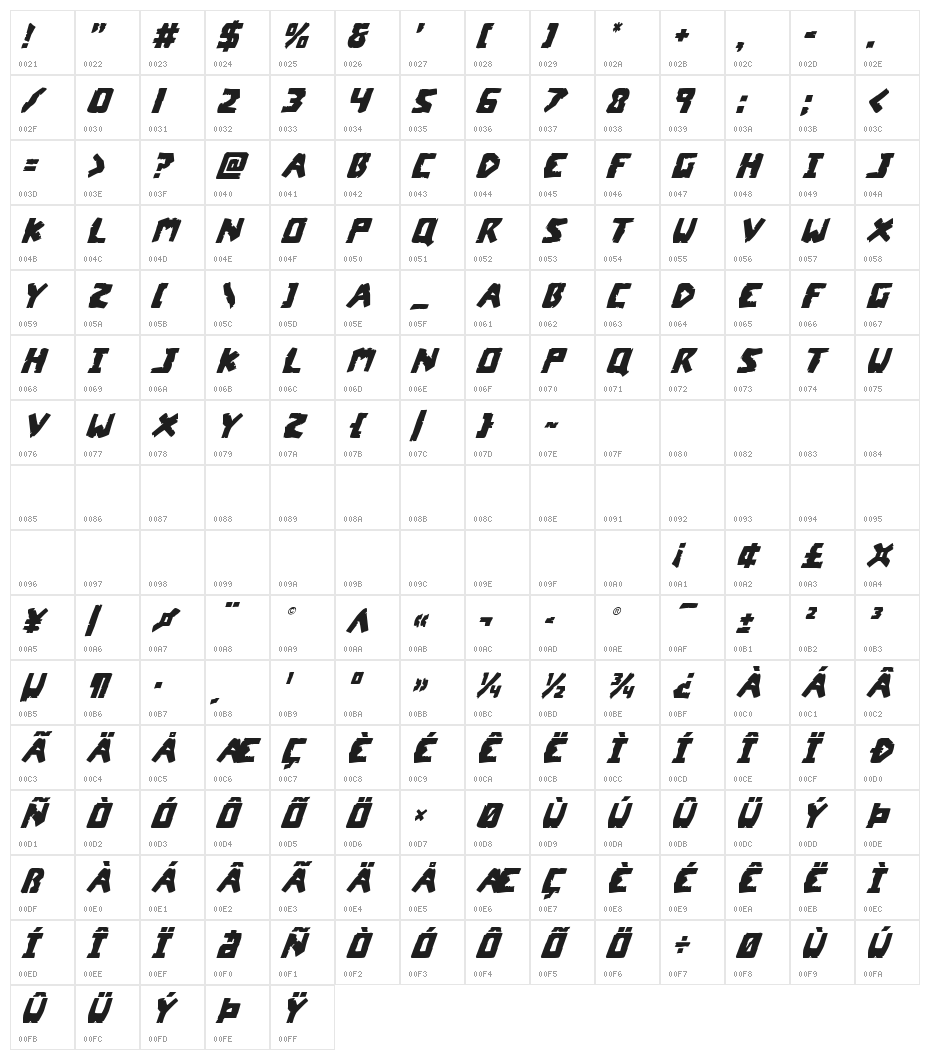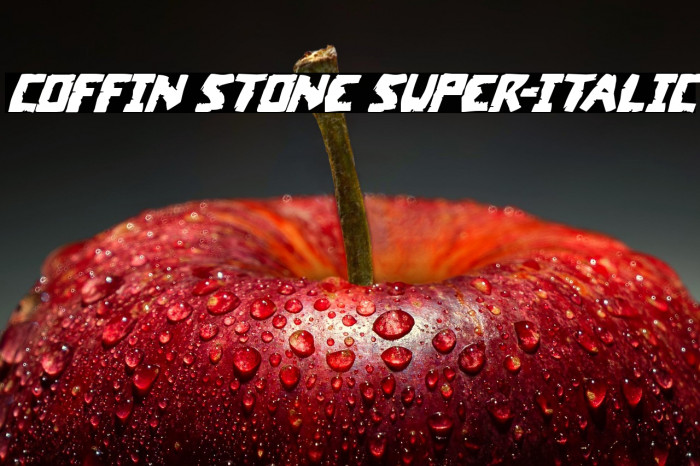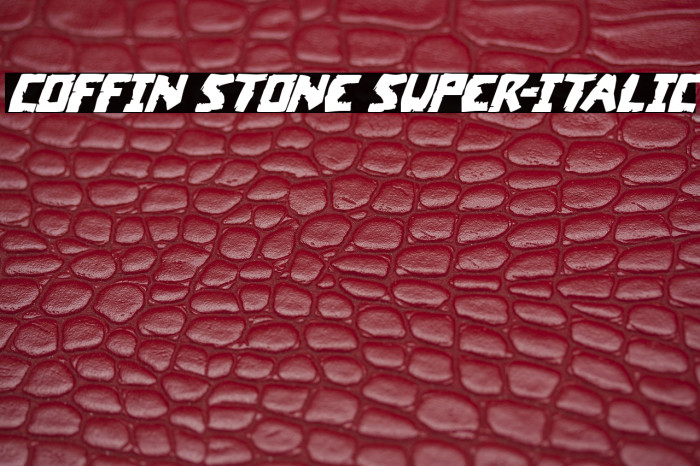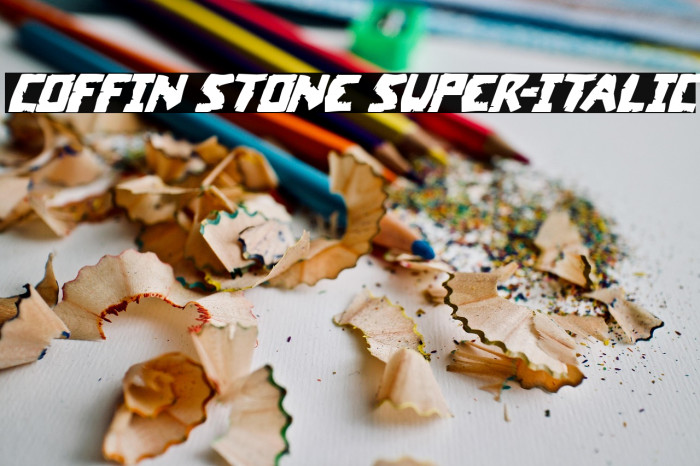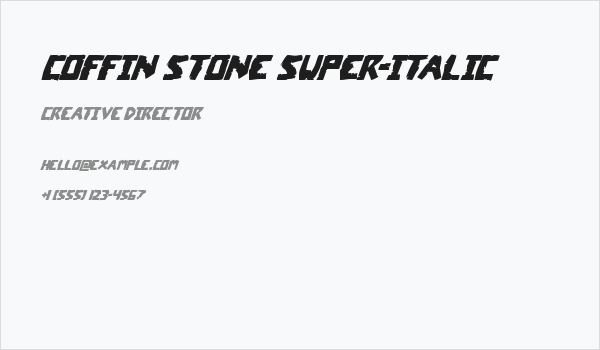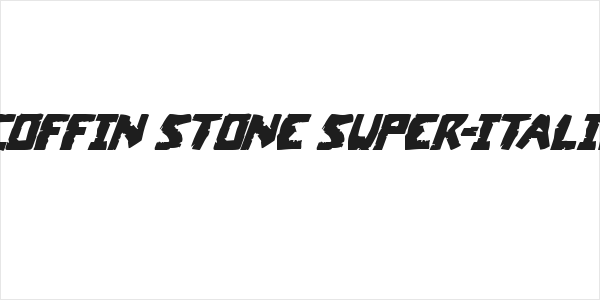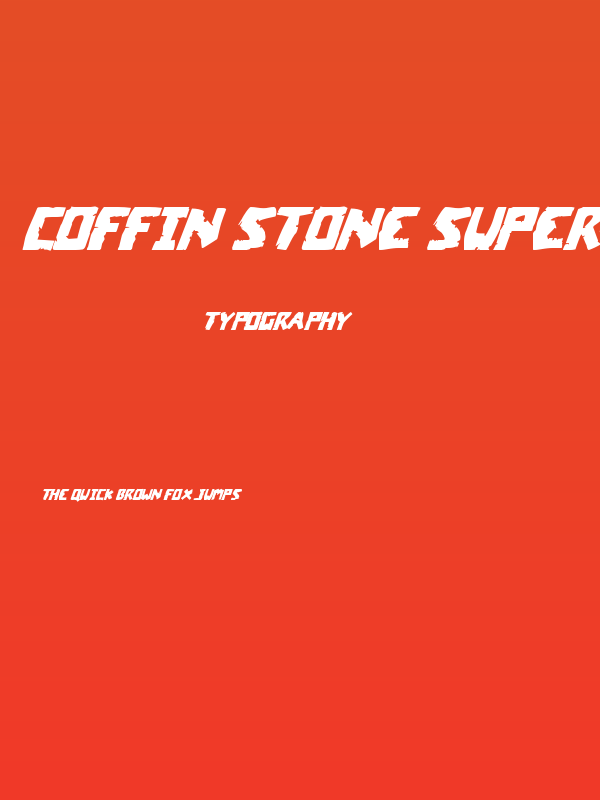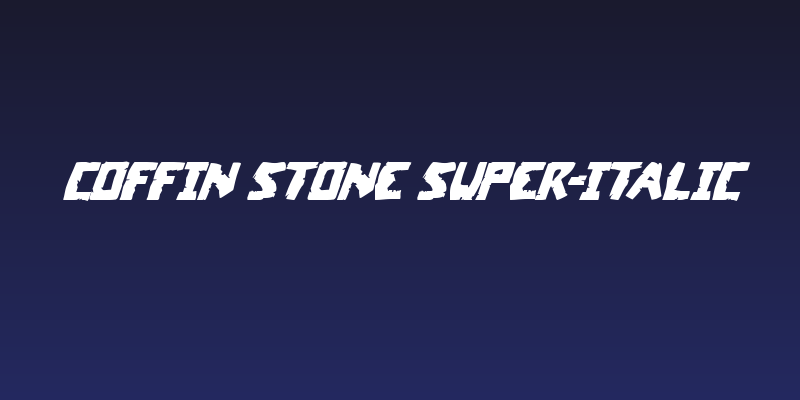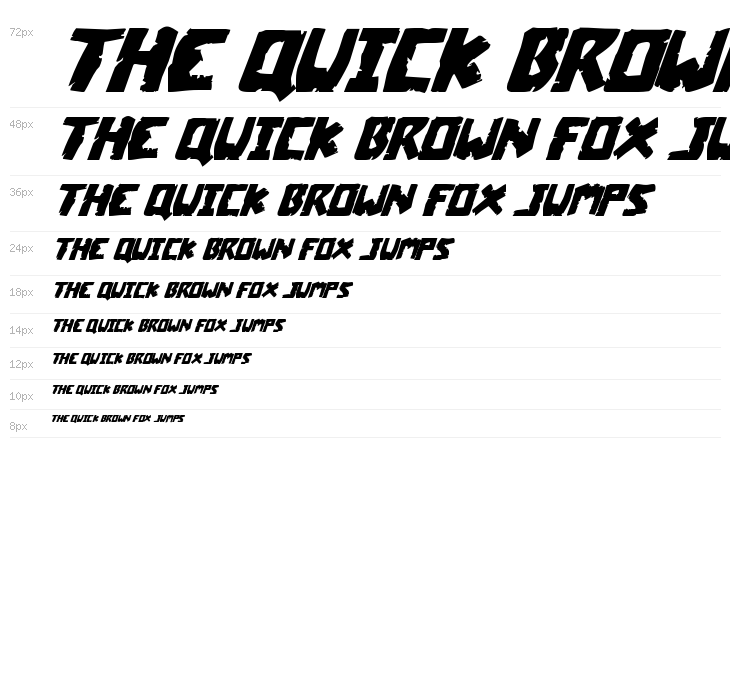
Coffin Stone Super-Italic Font
Coffin Stone Super-Italic Description
This font features a bold and dynamic style with sharp, angular edges and a distinct italic slant. The characters are heavily stylized, giving them a rugged and edgy appearance. The uppercase and lowercase letters maintain a consistent design, with exaggerated strokes and a sense of motion. The numbers and special characters follow the same aesthetic, ensuring a cohesive look across all glyphs. This font's aggressive and striking design makes it stand out, suitable for projects that require a strong visual impact.
| Proposed Projects | Ideal for posters, album covers, video game titles, and branding that requires a bold statement. |